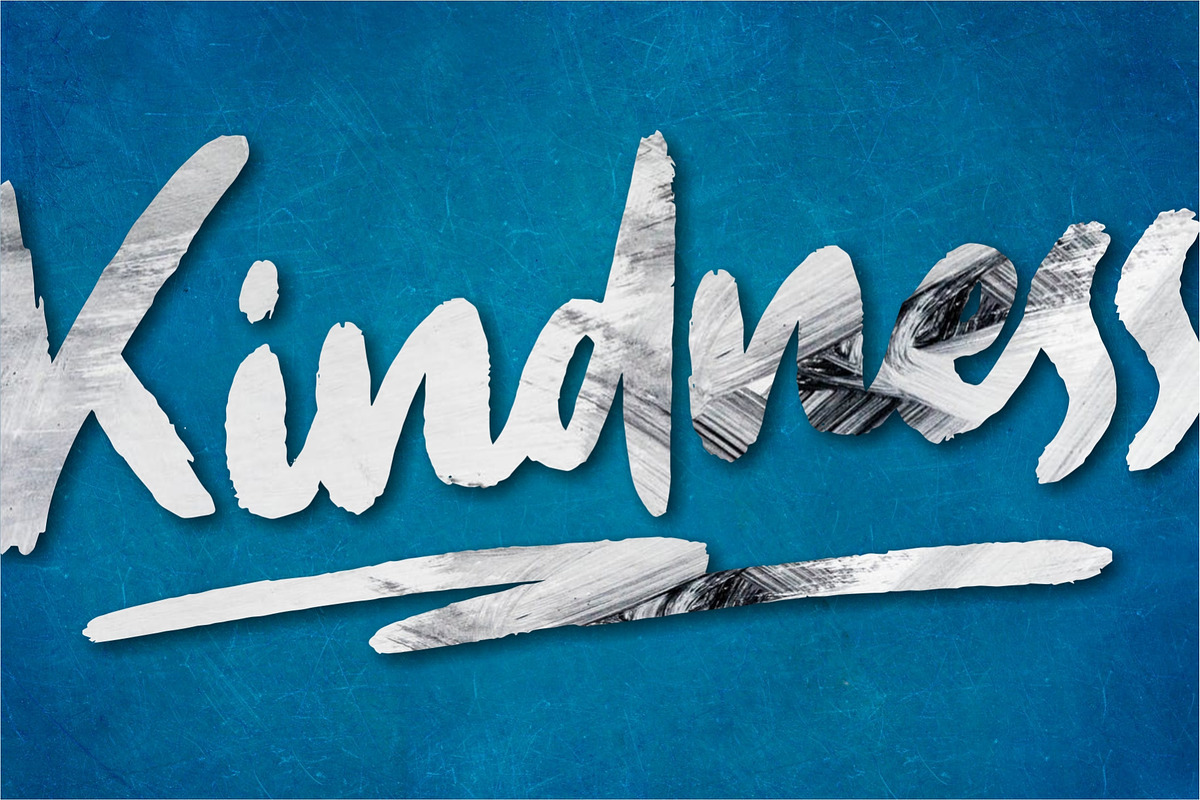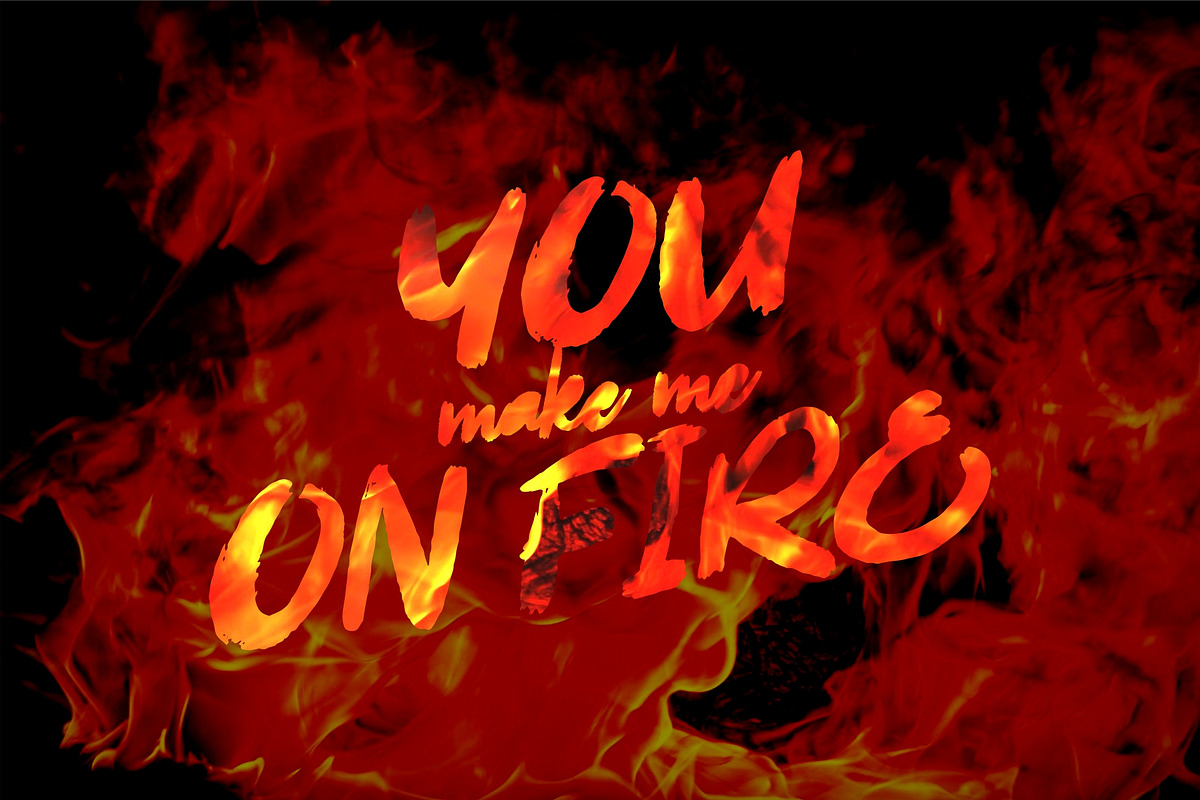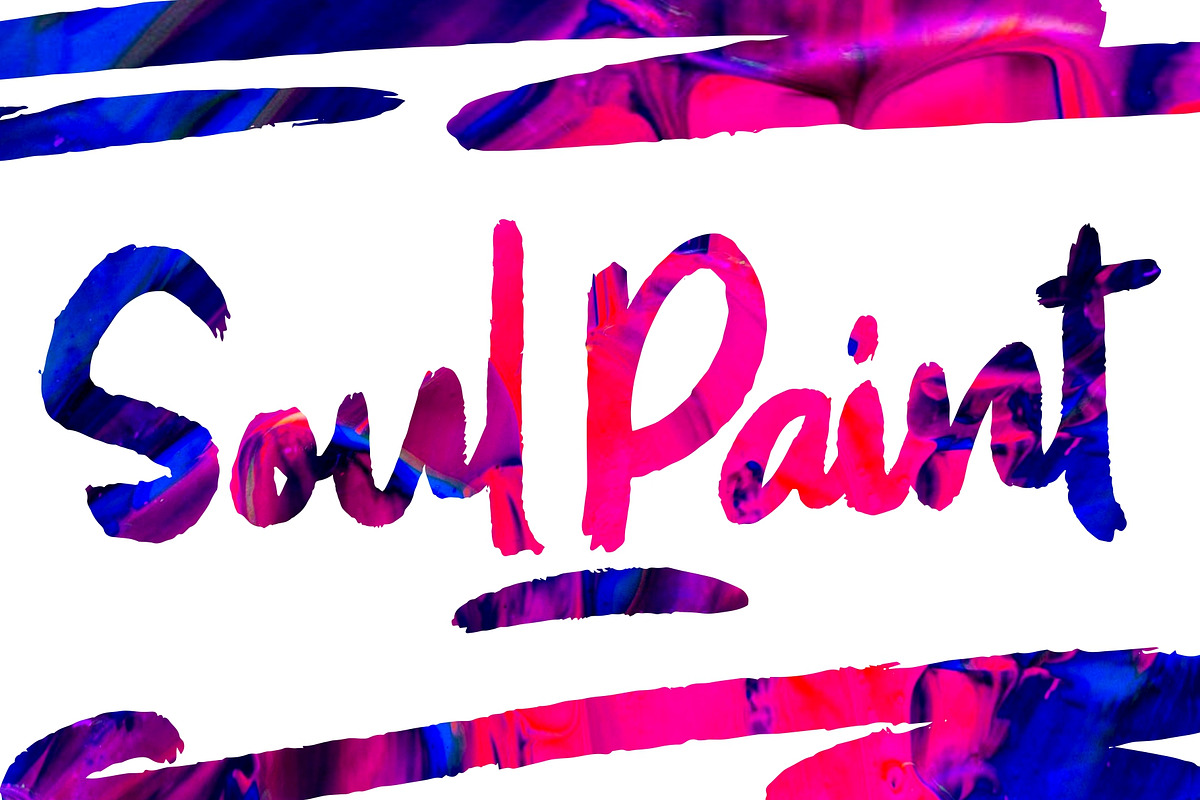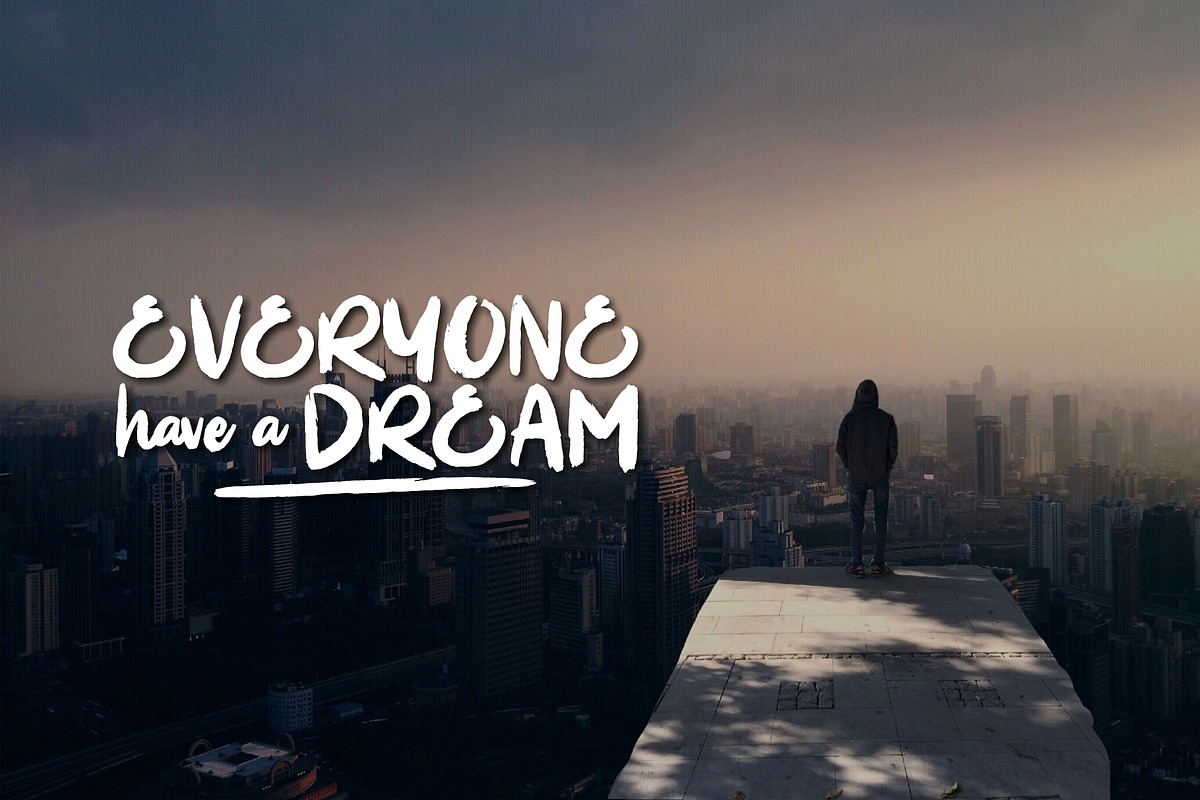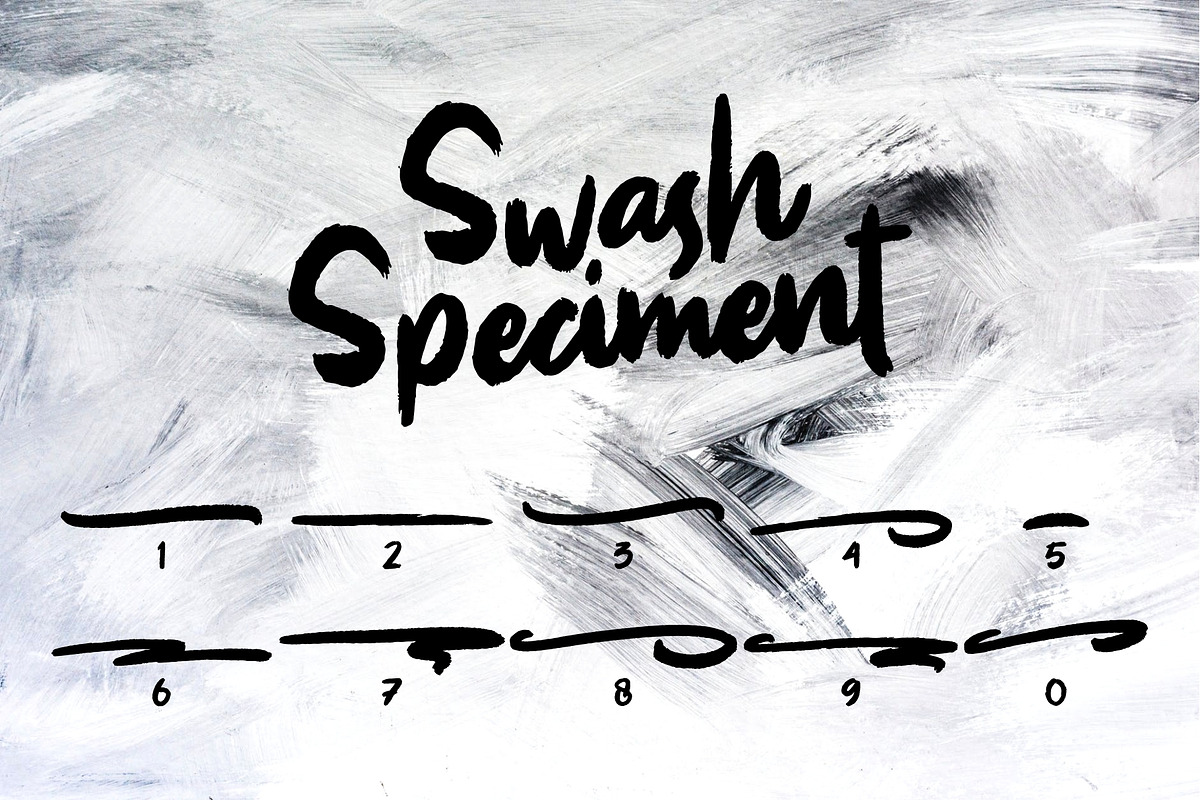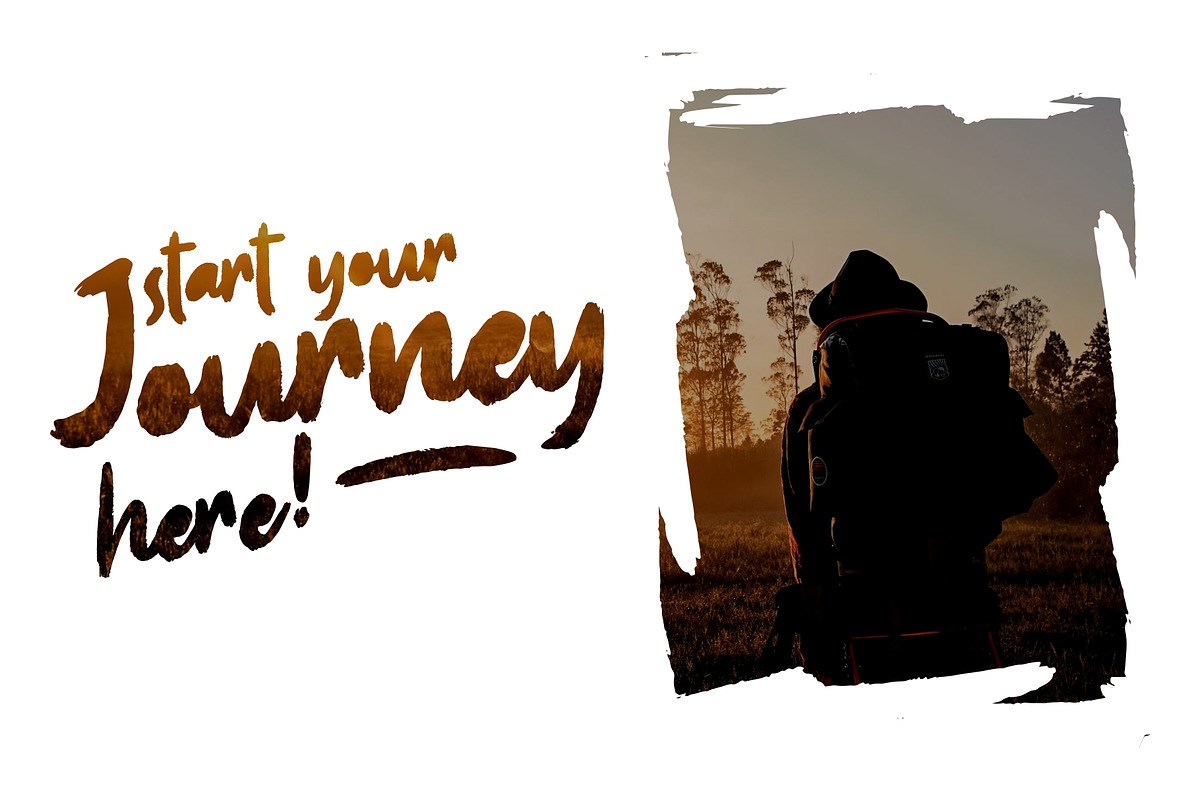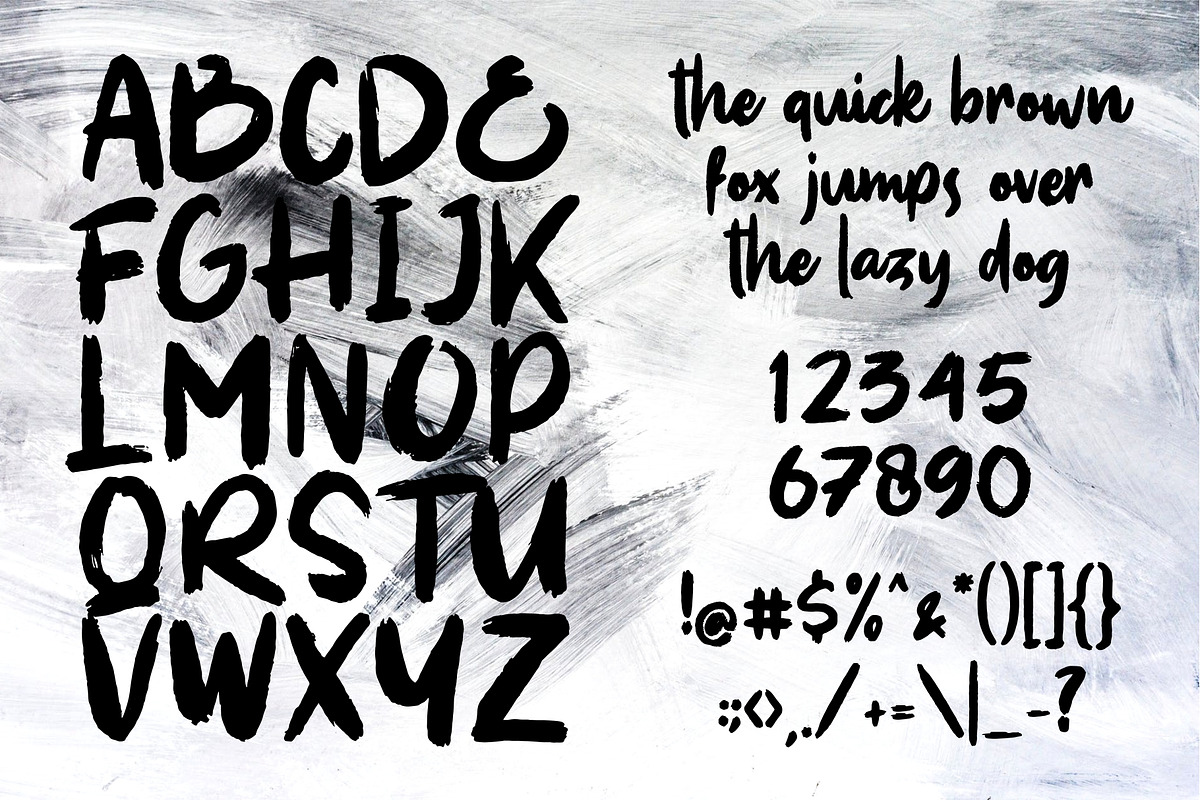
SOUL PAINT Brush Font
Introducing SOUL PAINT semi script brush font with dry brush style!
SOUL PAINT combines attractive curves with a fresh urban edge; delivering a stylish script which is guaranteed to add an eye-catching appeal to your logo designs, brand imagery, handwritten quotes, product packaging, merchandise & social media posts
EXTRA SWASH with change a numeral character
Why SOUL PAINT Brush Font is worth a look
SOUL PAINT Brush Font by Garisman Std fits naturally into Branding, posters, packaging, typography.